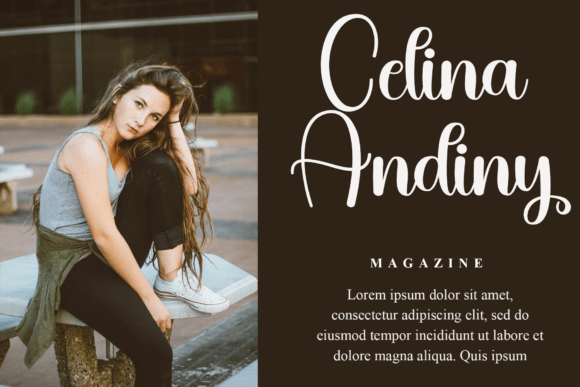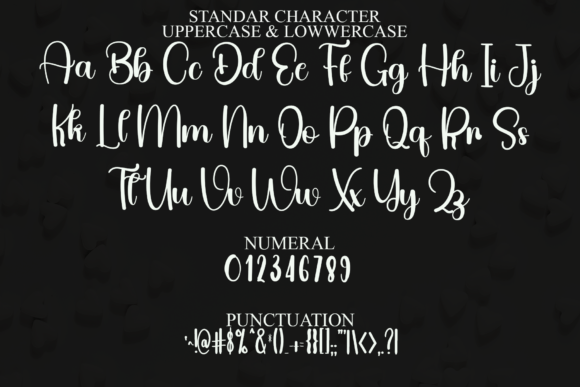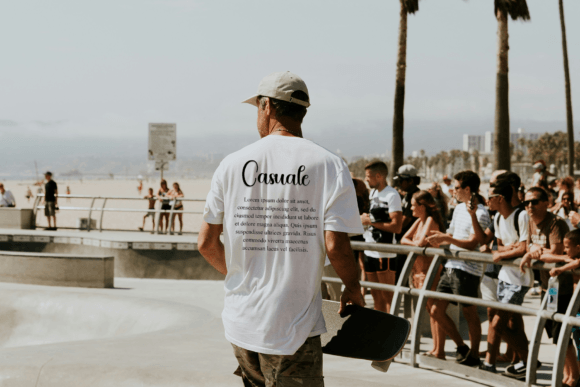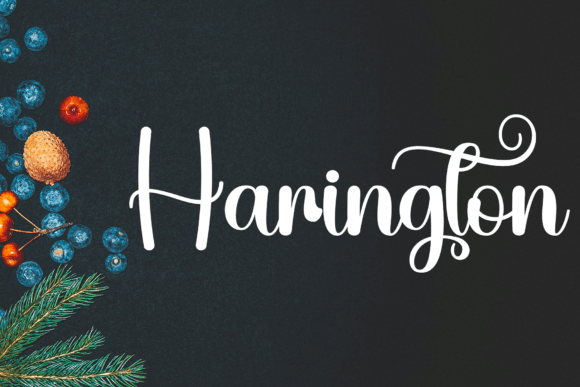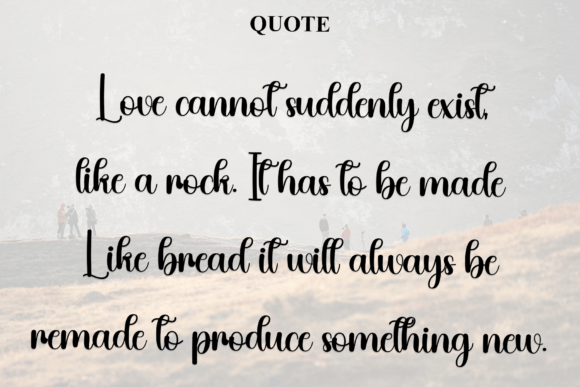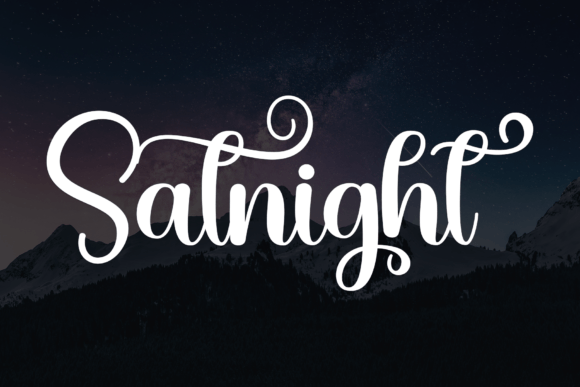
The Designer’s Delight: Unwrapping the Elegance of Batnight Font
I’ll never forget the late nights spent scrolling through font libraries, searching for that perfect typeface to bring my design project to life. It was for a wedding invitation, and I wanted something that exuded elegance, sophistication, and a touch of modern whimsy. That’s when I stumbled upon Batnight Font – a beautiful, refined handwritten font that instantly captured my heart. In this article, I’ll share my experience with Batnight, its features, and how you can make the most of it in your designs.
A First Impression: What I Love About Batnight Font
Batnight Font has been a game-changer for my designs, and here are a few reasons why:
- ✨ Elegant and Modern Look: Batnight boasts a classy, elegant, and modern aesthetic that’s perfect for a wide range of design projects, from logos and branding to invitations, stationery, and social media posts.
- 💫 Versatile and Adaptable: Whether you’re working on a wedding design, a business logo, or a social media graphic, Batnight’s versatility ensures it will fit right in.
The Not-So-Perfect: A Few Quirks
No font is perfect, and Batnight is no exception. Here are a few things to keep in mind:
- 🤔 Limited Use in Body Text: While Batnight shines in headlines and short texts, it might not be the best choice for lengthy body text due to its elegant, yet somewhat ornate nature.
The Story Behind Batnight: A Designer’s Inspiration
While the actual origins of Batnight might not be well-documented, one can imagine it was created by a designer with a passion for calligraphy and a vision for a font that combines elegance with readability. Inspired by the beauty of handwritten scripts and the need for modern, versatile typefaces, Batnight was likely crafted with love and a keen eye for detail.
Q: Is Batnight suitable for body text?
A: While Batnight is stunning for titles and short texts, it’s not typically recommended for lengthy body text due to its elegant and somewhat ornate nature.